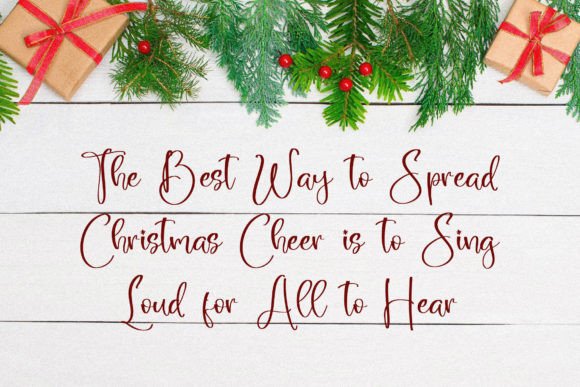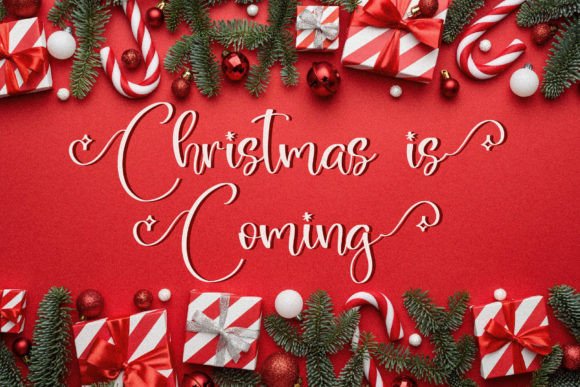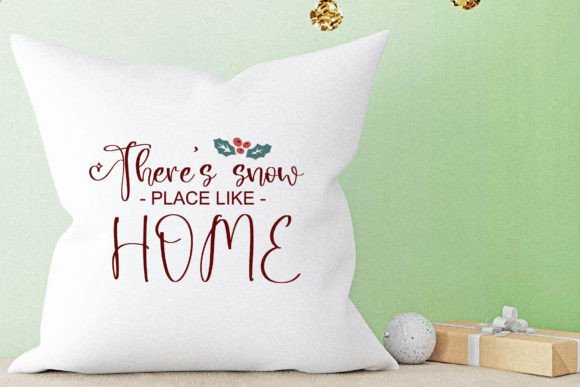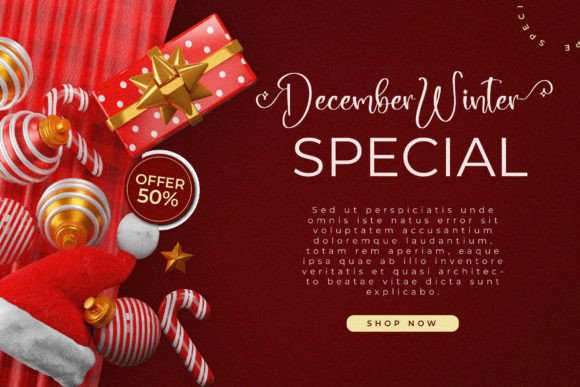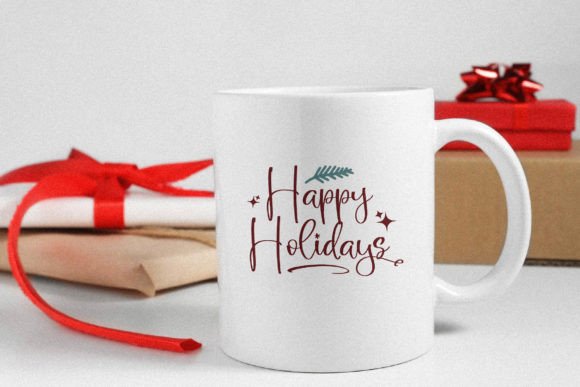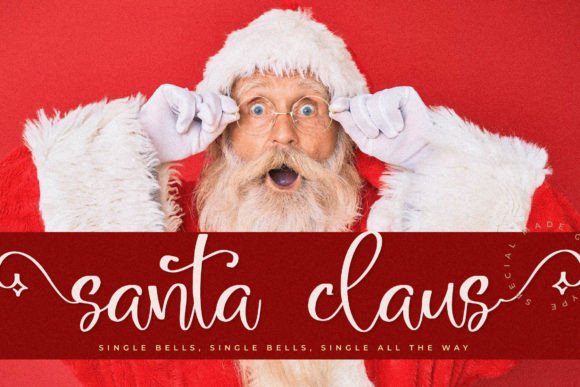
Introduction to Snow Chirstmas Font
Snow Chirstmas – Beauty Script Font , from Glorytype Studio, suitable for any projects such as: logos, branding projects, homeware designs, product packaging, mugs, quotes, posters, shopping bags, t-shirts, book covers, name card, invitation cards, greeting cards, label, photography, watermark, special events, and all your other lovely projects that need a beautiful script taste.
Key Features of Snow Chirstmas Font
Why Choose Snow Chirstmas Font?
Snow Chirstmas Font offers exceptional quality and versatility, making it a valuable addition to your design toolkit. Whether you’re creating for personal projects or commercial use, Snow Chirstmas Font delivers professional results.